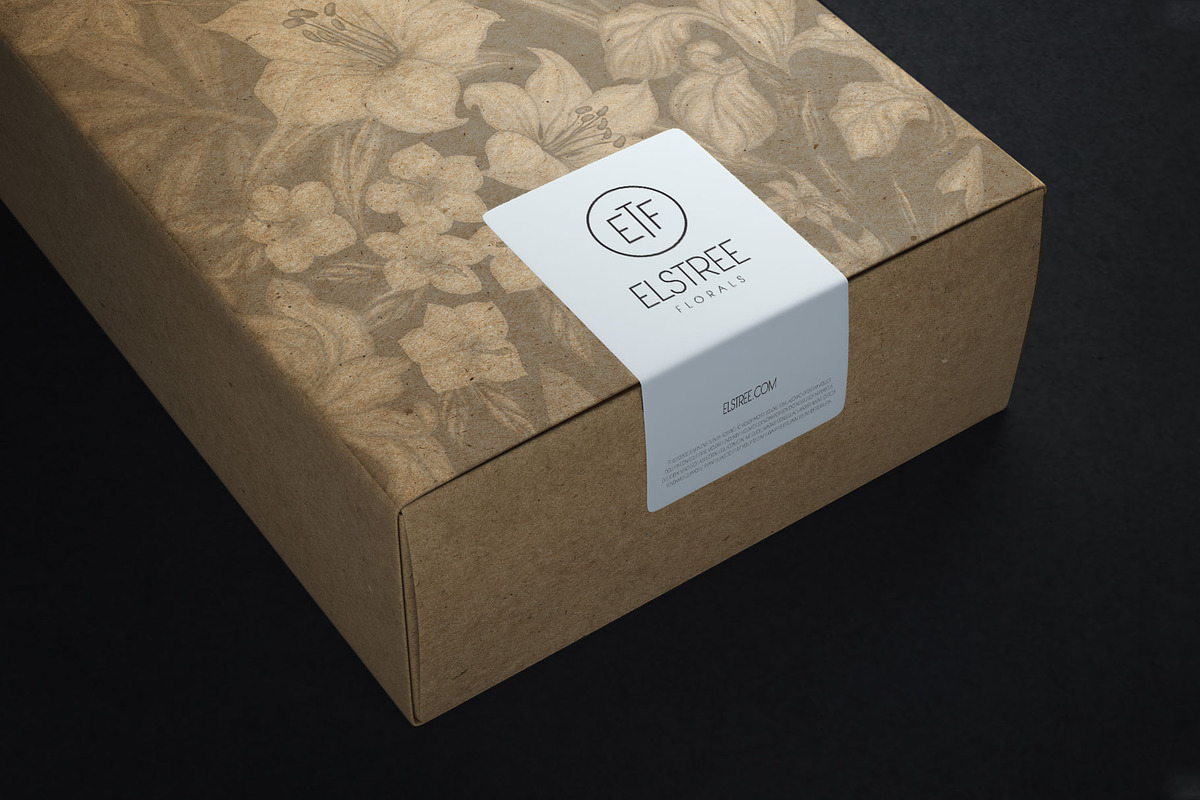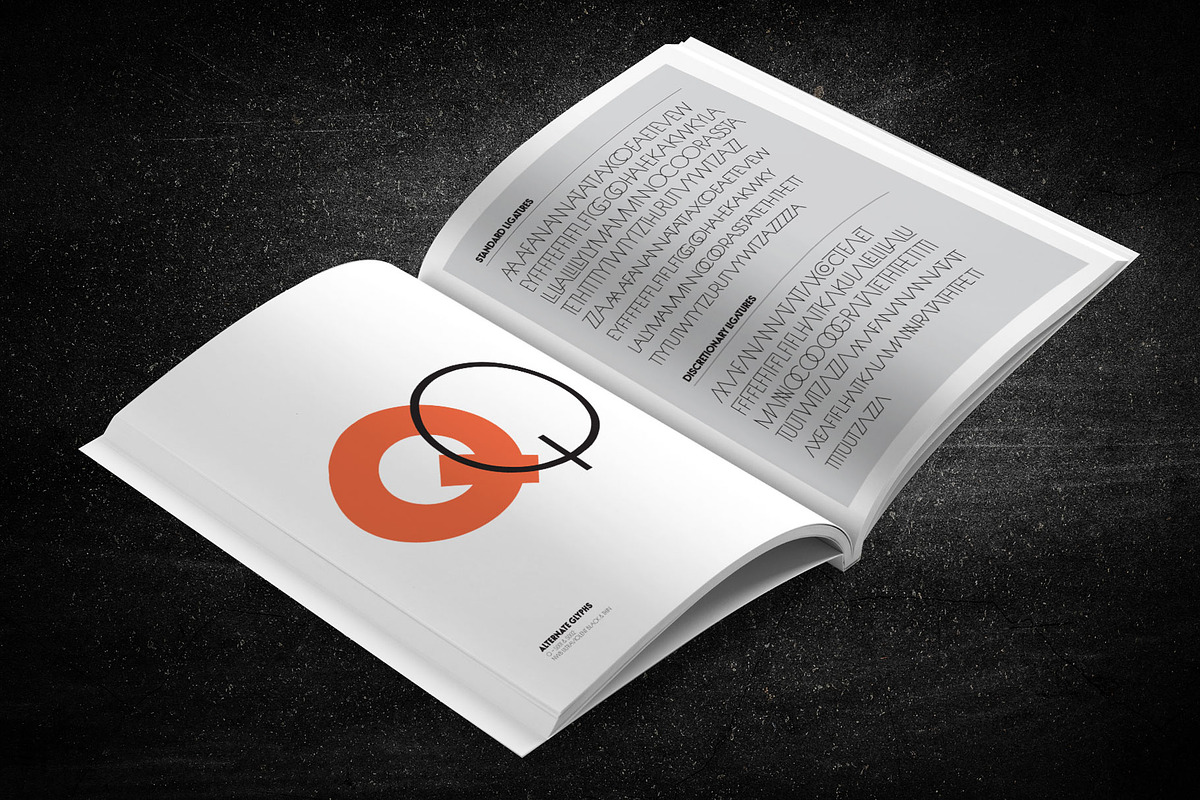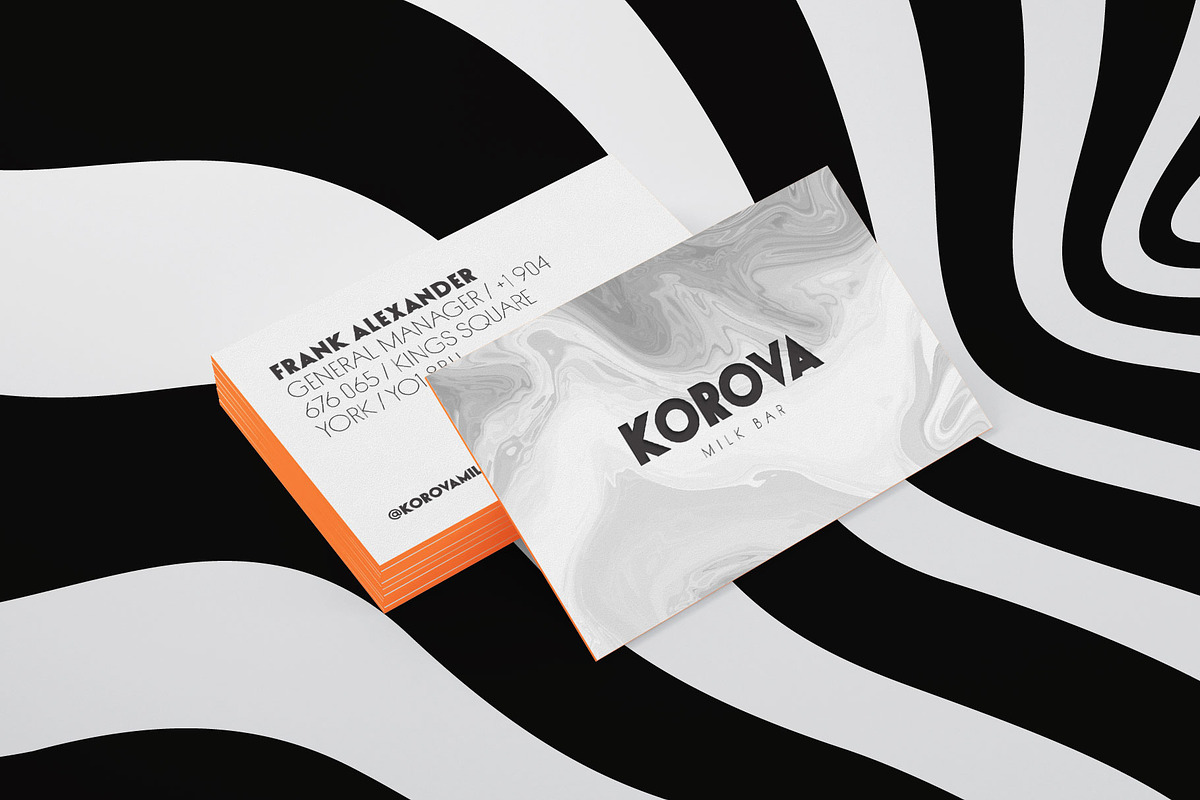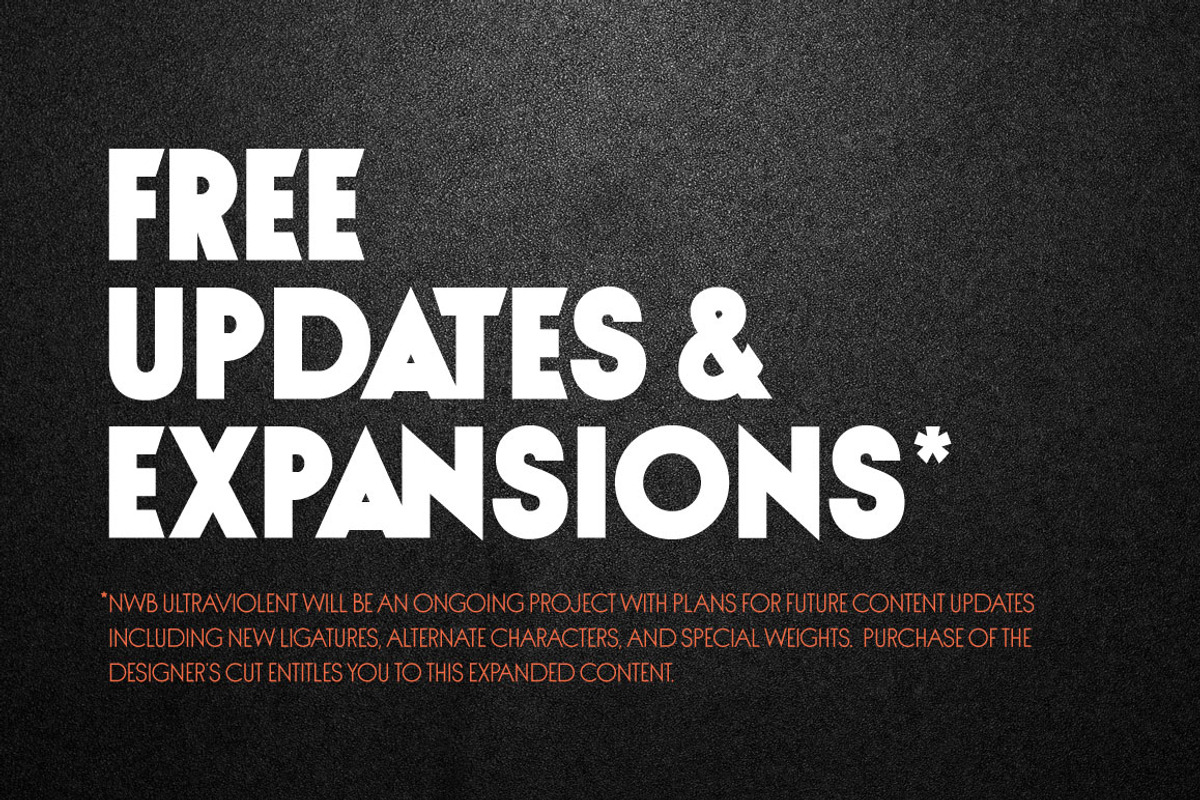
NWB UltraViolent – Designer's Cut
- All new numeral & ampersand alternates
- New ligature & glyph optimizations
NWB Ultraviolent – Designer's Cut is an 8 weight geometric sans-serif display typeface inspired by the poster type of A Clockwork Orange. Its design combines the aesthetics of Futura and the complex ligature structures of Avant Garde with a clean, modern spin to create a quirky, yet stylish and refined look. In addition to 176 ligatures it also features alternate characters for "A", "Q" and two special alternate "O" glyphs only available in this version.
- Upper & Lowercase (small caps)
- Numbers, Punctuation & Symbols
- Standard & Discretionary Ligatures
- Alternate glyphs ( ss03 "O" glyph only available in the Designer's Cut )
- Multi-language Support